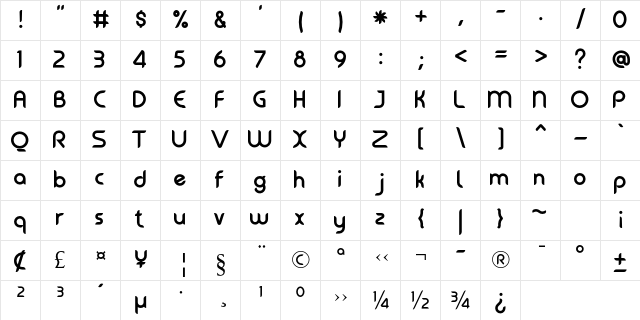
gadies Regular
| Designer | faldykudo |
Design Context for gadies Typeface
gadies takes a measured approach to typography — its balanced proportions and neutral character make it a reliable workhorse for both digital and print work.